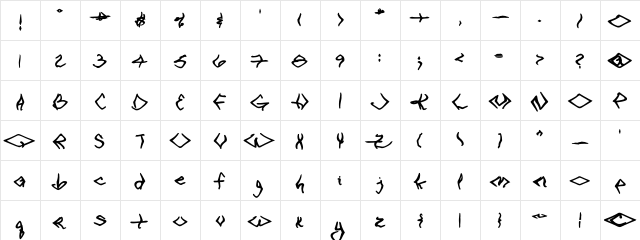
VTC SeeJoBend Bold
| Designer | WolfBainX |
Design Context for VTC SeeJoBend Typeface
VTC SeeJoBend is a composed and adaptable typeface that performs quietly and consistently across a wide range of design contexts. Its bold stroke weight gives it real presence on the page.